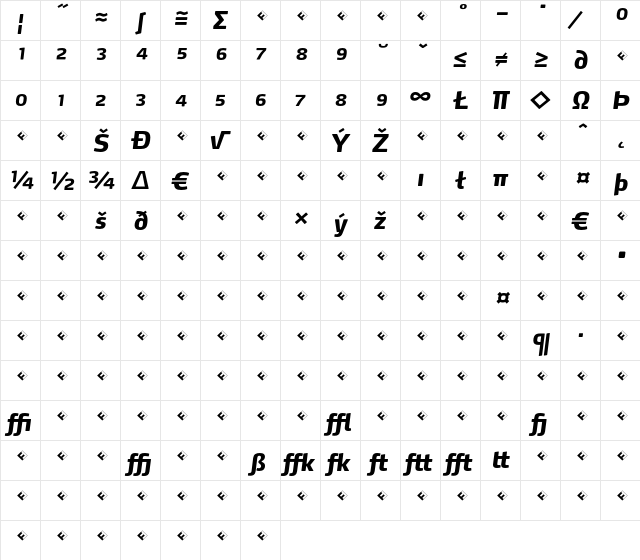
Max-ExtraBoldItalicExpert Regular Font Preview
Design Context for Max-ExtraBoldItalicExpert Typeface
Max-ExtraBoldItalicExpert offers clean, dependable letterforms without strong stylistic allegiance, making it a practical choice for designers who need flexibility. Its italic angle brings a sense of urgency and motion to the letterforms. The heavy weight commands attention and anchors typographic hierarchies.
Pro Tip: Try Max-ExtraBoldItalicExpert for annotation and caption copy alongside an upright companion — the contrast in angle creates a dynamic but ordered typographic system.